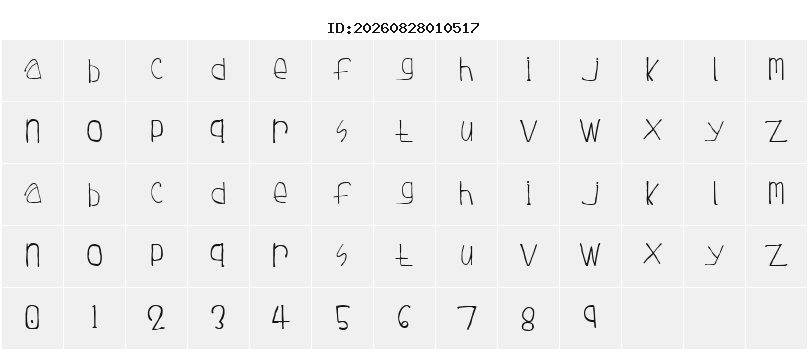
Tuesday Preview
• Font Name: Tuesday
• Font ID: Frog: Tuesday (TM7)
• Full Font Name: Tuesday
• Version: Revision 1 - 3 June 1997 - TM7
• PostScript Name: Tuesday
• Character Count: 84
About Tuesday.ttf
Tuesday.ttf is a modern, elegant sans-serif font designed for ultimate readability and visual harmony. Perfect for branding, headlines, web design, and print materials.